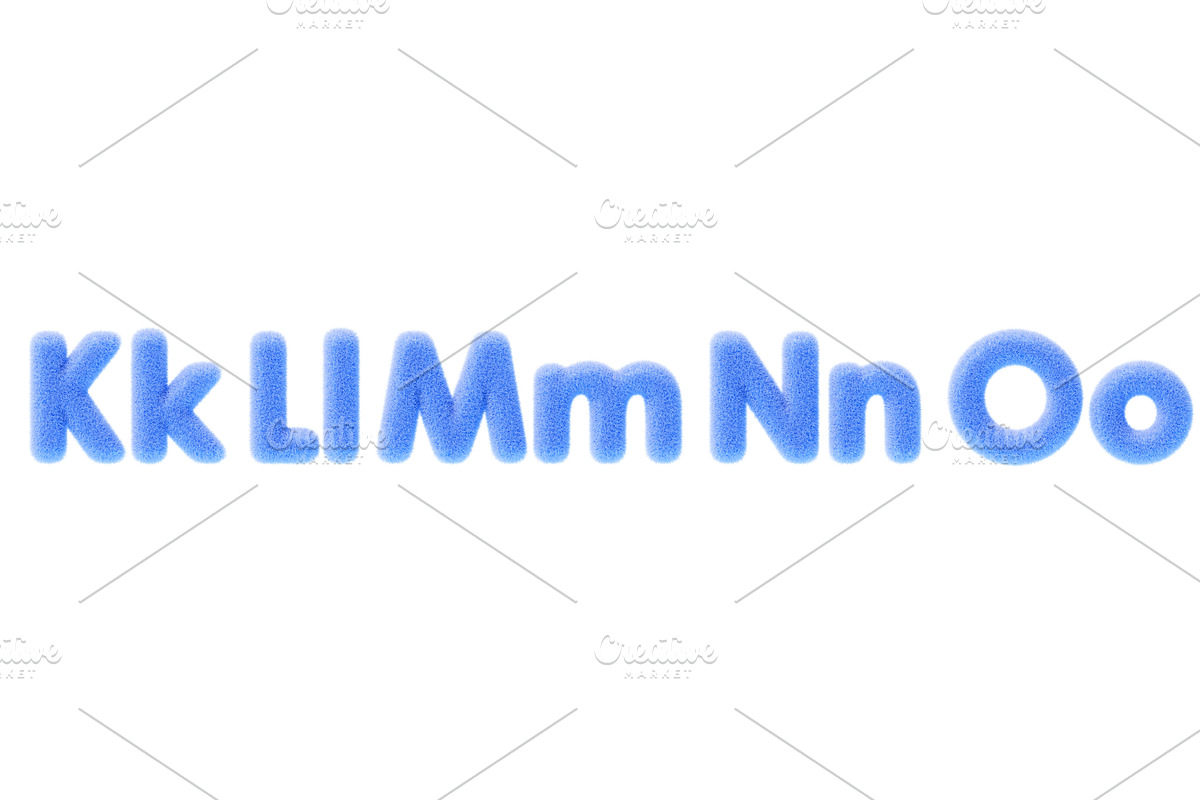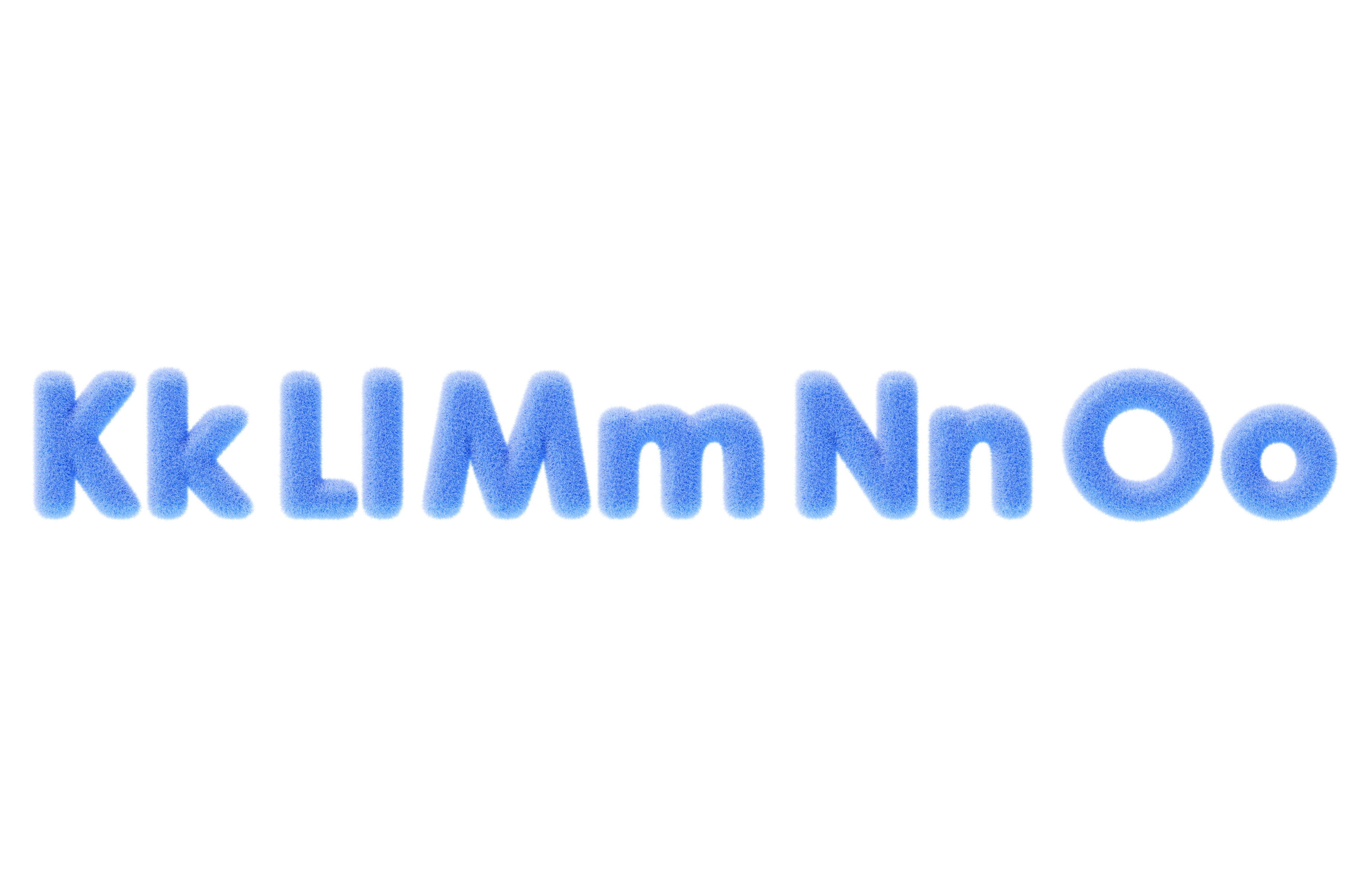
3d blue fur fluffy font of uppercase
3d blue fur fluffy font of uppercase and lowercase letters Kk Ll Mm Nn Oo. Fuzzy English ABC alphabet with hair texture. Capital and small letters of soft wool felt for education kids. 3D illustration